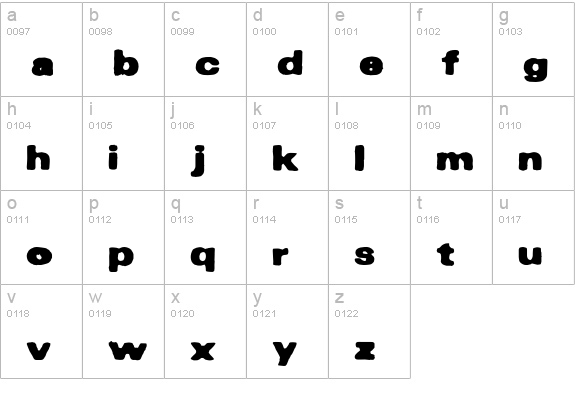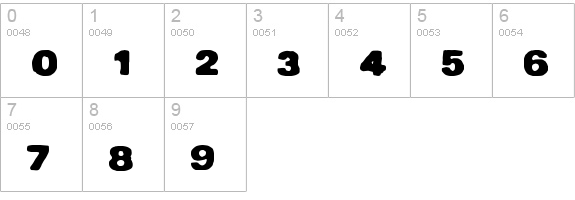
INKy-black Font Details
INKy-black is a maximum-weight, dramatic variant in the INKy typeface family \xE2\x80\x94 well suited to maximum-impact headlines, posters, and packaging.
Introducing INKy-black font, the epitome of elegance and sophistication. This captivating typeface exudes a sense of mystery and intrigue with its bold, sleek lines and meticulously crafted design. Whether you are creating eye-catching headlines, designing striking logos, or crafting stylish invitations, INKy-black font is the perfect choice to make a lasting impression. With its sleek and modern aesthetic, INKy-black font effortlessly blends into any design project, adding a touch of class and sophistication. The unique combination of bold strokes and delicate curves creates a harmonious balance that is both visually striking and highly legible. One of the most remarkable features of INKy-black font is its versatility. It is equally well-suited for both print and digital media, making it the go-to choice for designers across various platforms. Its bold and impactful presence ensures that your message will be delivered with utmost clarity and impact. But what truly sets INKy-black font apart is its availability as a free download at FontsMarket.com. Yes, you read that right – this exceptional font can be yours at no cost. FontsMarket.com is proud to offer this stunning typeface to designers and creatives worldwide, allowing them to unleash their creativity without any financial constraints. Downloading INKy-black font from FontsMarket.com is a breeze. Simply visit the website, locate the font, and with just a few clicks, it will be ready to enhance your designs and captivate your audience. The availability of this font for free ensures that it is accessible to everyone, regardless of budget or resources. So why wait? Take advantage of this amazing opportunity and elevate your designs with the mesmerizing beauty of INKy-black font. Download it now, and watch as your projects come to life with a touch of elegance and sophistication that only this font can provide.